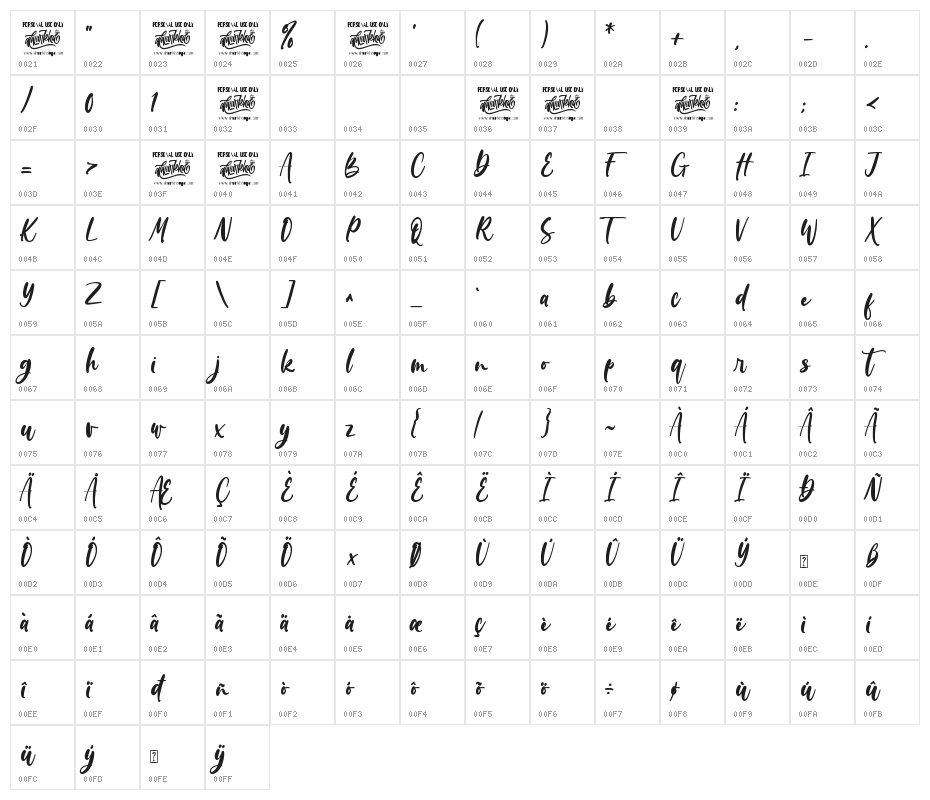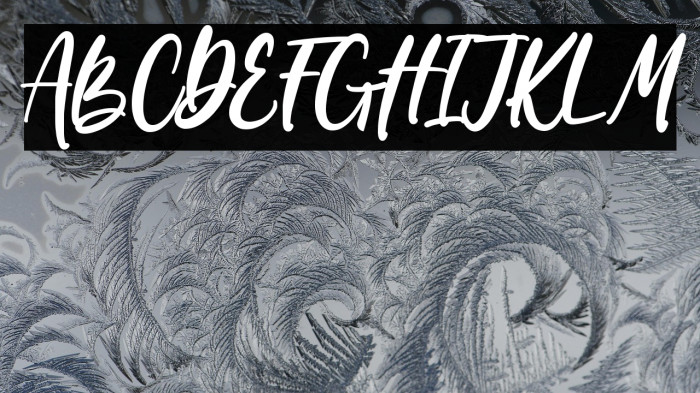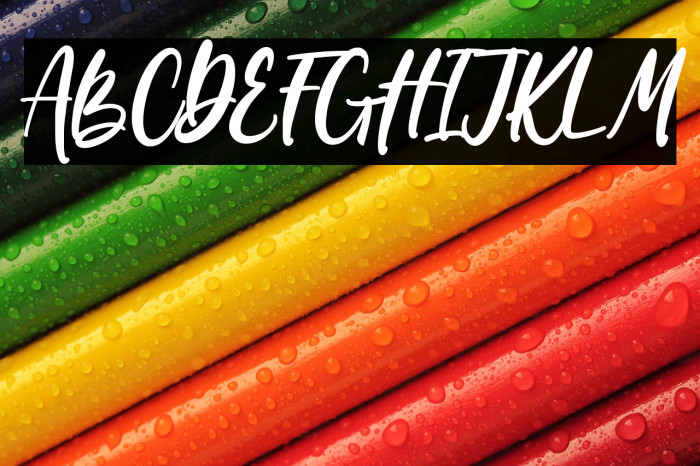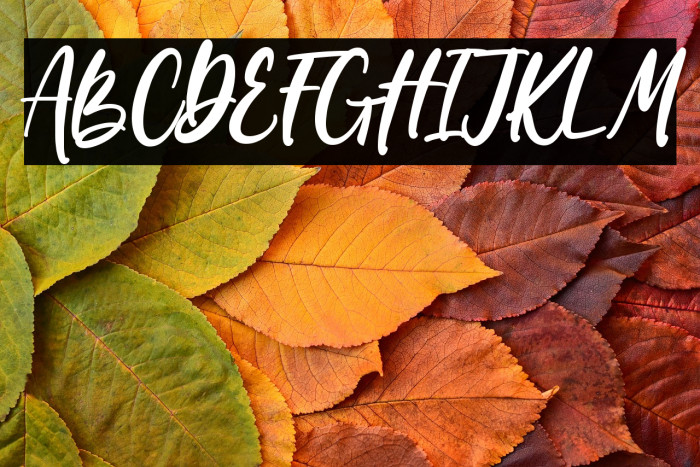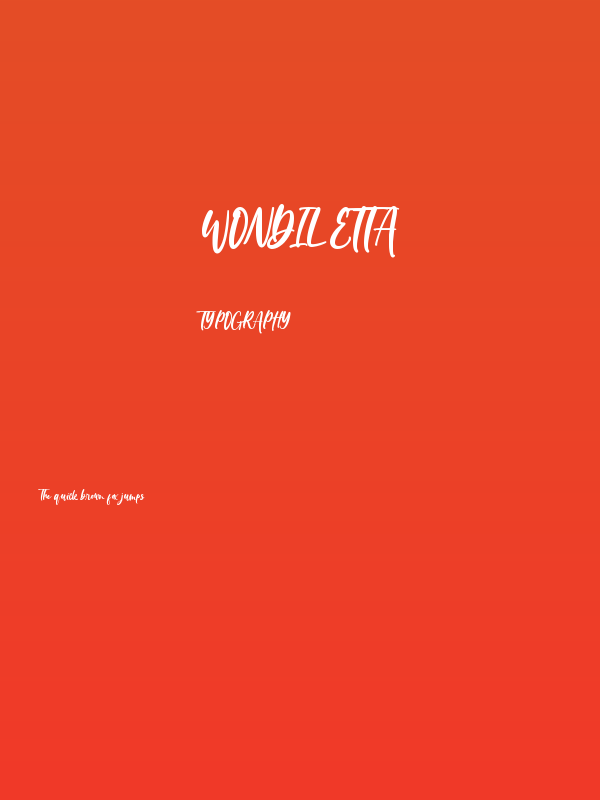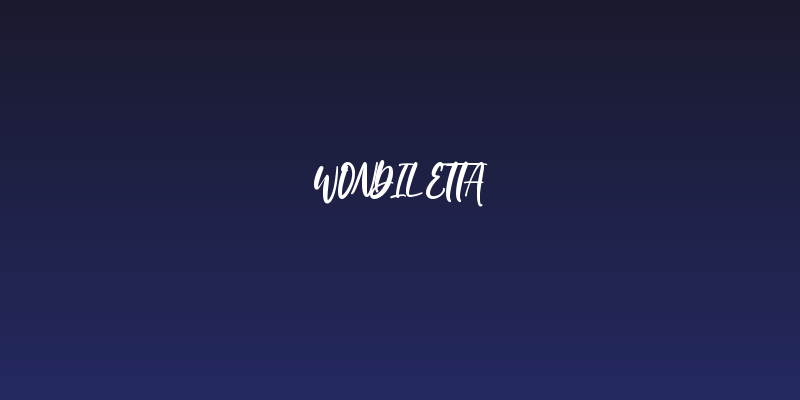
Wondiletta Font
Wondiletta Description
This font features a bold and expressive handwritten style, characterized by its fluid and dynamic strokes. The uppercase letters are tall and slightly slanted, giving a sense of movement and energy. The lowercase letters maintain a consistent flow, with some characters featuring unique loops and curves that add to the font's charm. The numbers and special characters are designed to match the overall aesthetic, ensuring a cohesive look. This font is perfect for projects that require a personal and artistic touch, such as invitations, branding, and social media graphics.
| Proposed Projects | Ideal for invitations, branding, social media graphics, and artistic projects. |